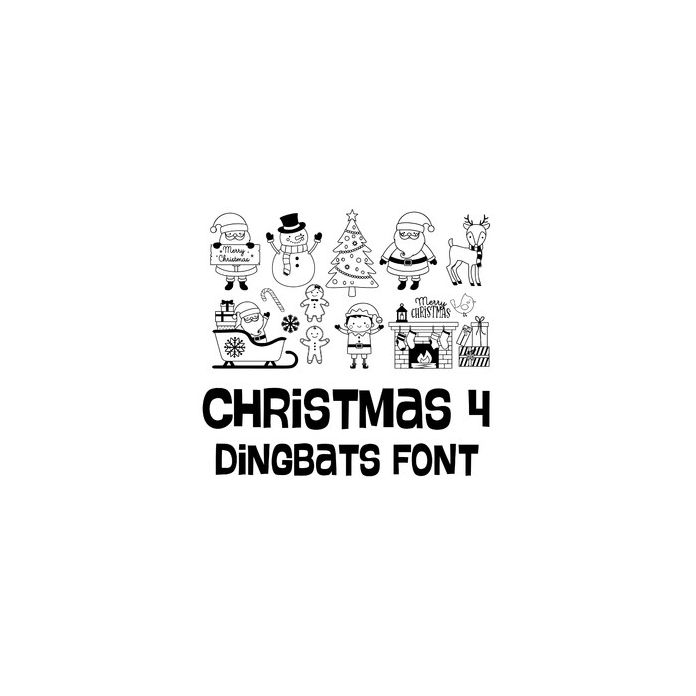
These 26 adorable Christmas icons are fun to work with and make perfect embellishments for all sorts of Christmas projects. Visit Lori Whitlock on YouTube, Instagram, Facebook, or her blog for tutorials, inspiration, and freebies. Be sure to watch Lori's Dingbats tutorial video for ideas on how to use dingbats.